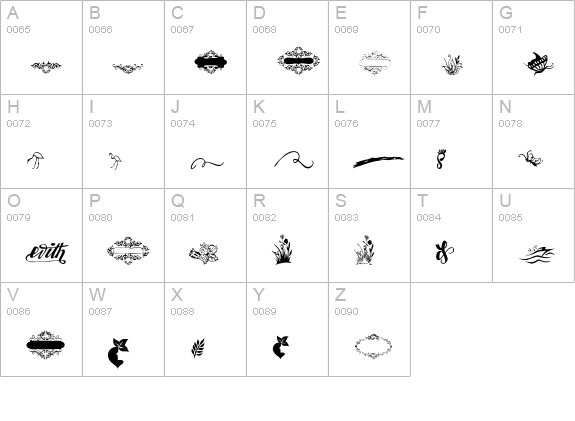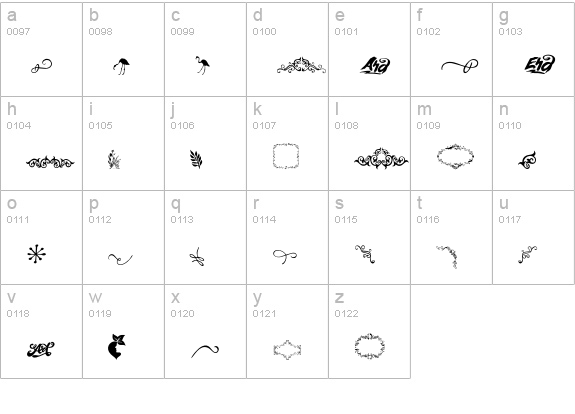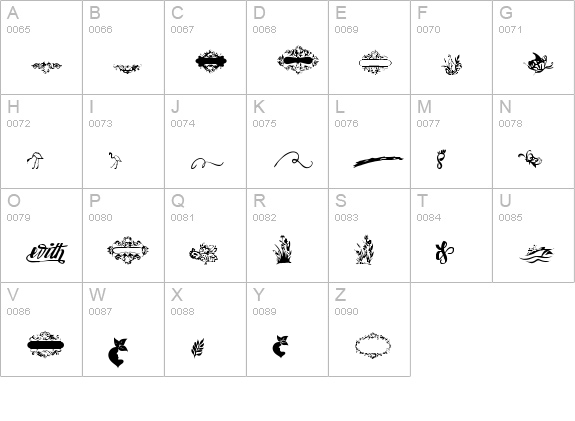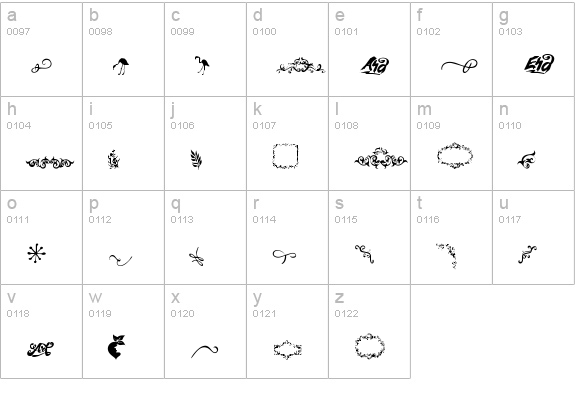
Bruselo Ornm Font Details
Bruselo Ornm font is a unique and elegant typeface that brings a touch of sophistication to any design project. With its intricate ornamental details and stylish curves, this font is perfect for adding a touch of class to invitations, posters, logos, and more. The ornate flourishes and decorative elements make Bruselo Ornm font stand out and capture attention. What's even better is that Bruselo Ornm font is available for free download at FontsMarket.com. Whether you're a designer looking to add a special touch to your creations or a hobbyist wanting to elevate your projects, Bruselo Ornm font is the perfect choice. Download this stunning font today and let your creativity shine with its exquisite details and timeless appeal.